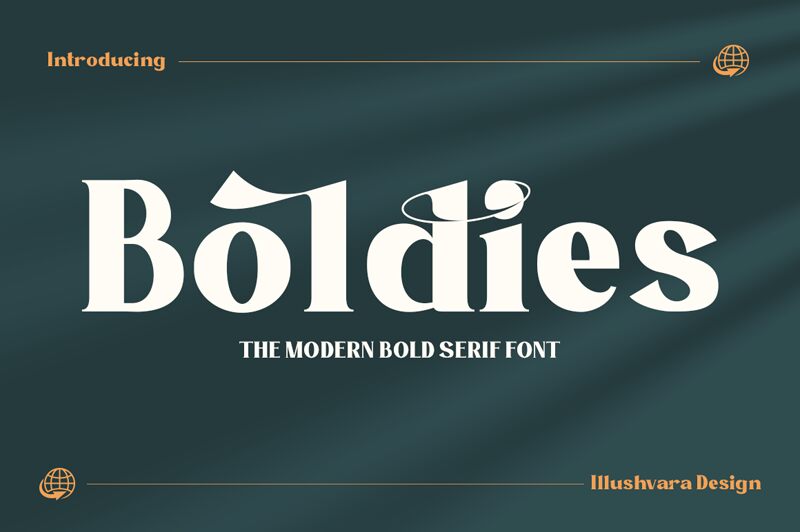
Boldies is a captivating serif font designed by Illushvara. With its bold weight, Boldies exudes confidence and commands attention. Its timeless elegance makes it well-suited for projects that require a touch of sophistication, such as editorial designs, luxury branding, and high-end packaging. Whether you're creating exquisite wedding invitations or crafting unique book covers, Boldies will add a touch of class and distinction to your designs. Its bold lines and classic serifs make it perfect for conveying a sense of authority in headlines or logos. Elevate your projects with the striking allure of Boldies.